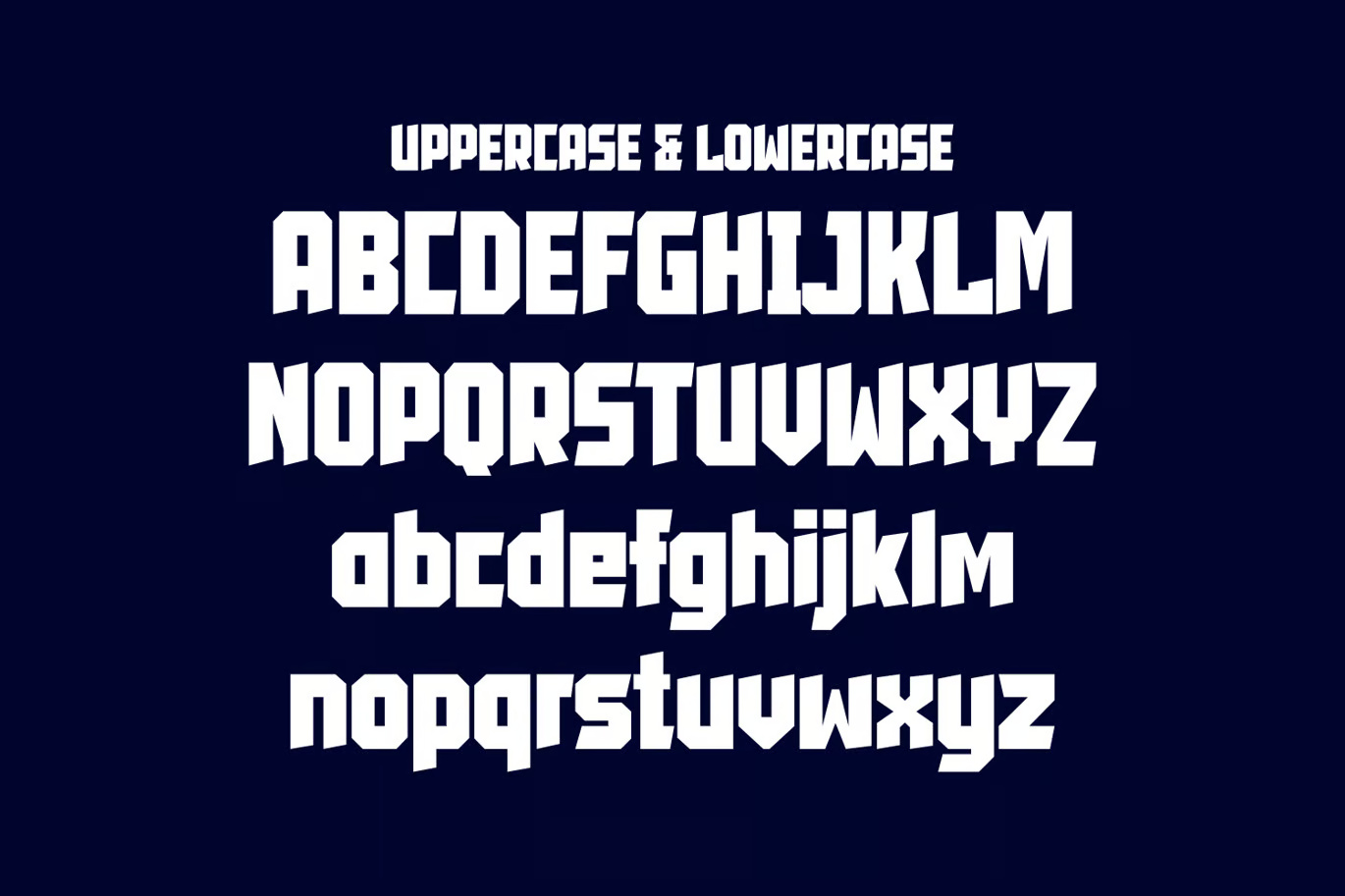
Motbun Bold Display Font
Motbun is a bold, eye-catching display font that effortlessly commands attention across both print and digital platforms. With its striking, geometric letterforms, this font is designed to make a statement in any project. Ideal for branding, name cards, posters, logos, magazine covers, banners, t-shirts, and headers, Motbun adds a touch of modernity and elegance to large-scale artwork and promotional materials. Its versatility makes it perfect for any creative endeavor where boldness and clarity are essential.
Motbun Bold Sans-Serif Display Font
Motbun Bold Display Font